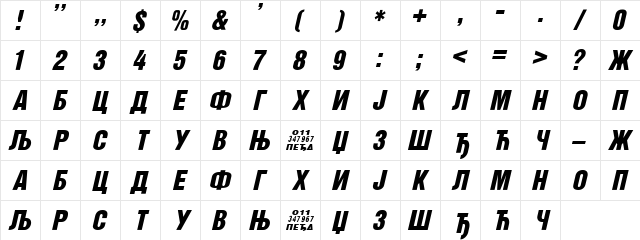
Complete C_Helvetika_Inserat Italic glyph index. Displaying only characters natively supported by C_Helvetika_Inserat Italic font.
C_Helvetika_Inserat is a composed and adaptable typeface that performs quietly and consistently across a wide range of design contexts. The slanted form adds forward momentum and visual energy.